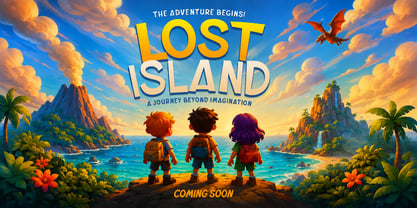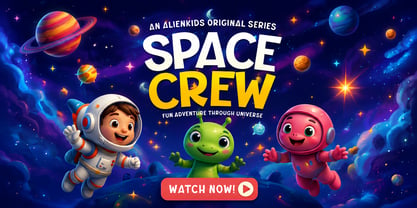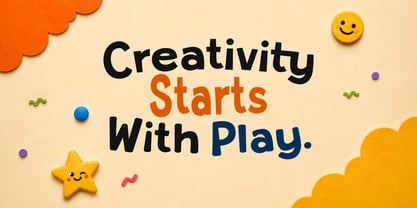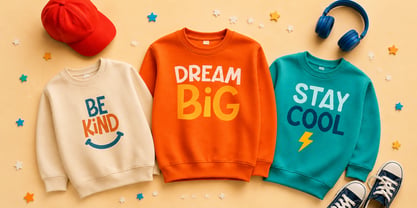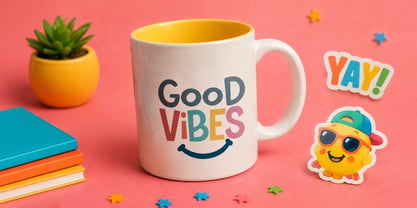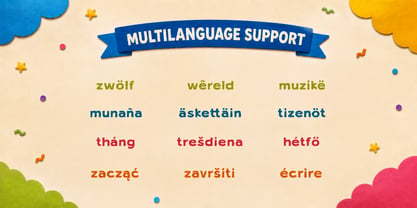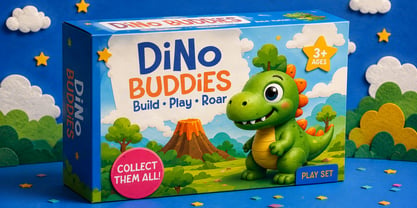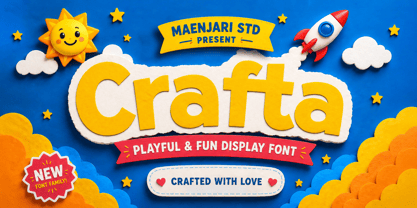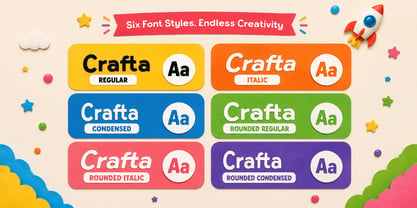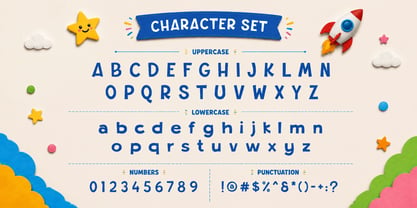
Crafta
por Maenjari Std
La familia tipográfica Crafta fue diseñada por Maenjari y publicada por Maenjari Std. Crafta contiene 6 estilos y opciones de paquete familiar. Más información sobre esta familia
Crafta is a comprehensive display sans-serif family that balances whimsical charm with typographic precision. Designed to meet the needs of modern commercial branding and editorial design for the youth market, Crafta excels in environments where personality and legibility must coexist.
The family consists of six weights and widths: Regular, Italic, Condensed, Rounded Regular, Rounded Italic, and Rounded Condensed. This range allows designers to create a sophisticated typographic hierarchy within a single project. The "Condensed" variants are optimized for impactful headlines in limited horizontal space, while the "Rounded" styles provide a soft, approachable aesthetic essential for child-safety-conscious branding and organic food packaging.
Technically robust, Crafta includes a wide range of Latin diacritics, supporting dozens of languages. It is an ideal choice for app interfaces, gaming UI, book covers, and large-scale environmental graphics.